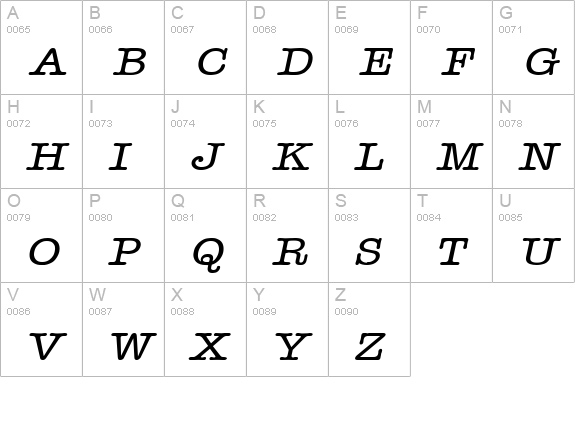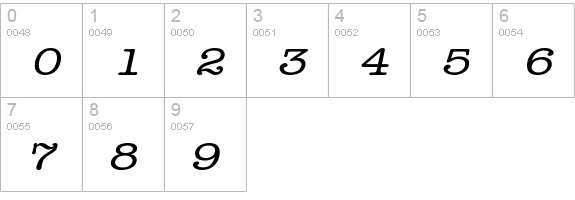
Headline Wide Italic is a distinctive, extended-width, italic variant in the Headline typeface family \xE2\x80\x94 well suited to design and typography projects.
Introducing Headline Wide Italic, a captivating and versatile font that is sure to make a bold statement in any design project. With its wide and italicized strokes, this font exudes a sense of modernity and sophistication, perfect for grabbing attention and adding a touch of elegance to your work. Headline Wide Italic is not only visually stunning, but it also offers a high level of readability, making it an ideal choice for headlines, titles, and any text that needs to stand out. Its unique design allows for seamless integration into various design styles, whether you're working on a sleek and contemporary website, a professional-looking brochure, or a captivating magazine layout. But that's not all – Headline Wide Italic comes with an added bonus: it is completely free! That's right, this remarkable font is freely available to download at FontsMarket.com. This means that you can effortlessly enhance your designs without any financial constraints, making it a fantastic choice for both personal and commercial projects. So why wait? Download Headline Wide Italic today and unleash your creativity with this stunning font. Whether you're a professional designer or a casual hobbyist, this font will undoubtedly elevate your designs to new heights. Don't miss out on this incredible opportunity to enhance your work with a font that combines boldness, style, and the freedom to create without limits.